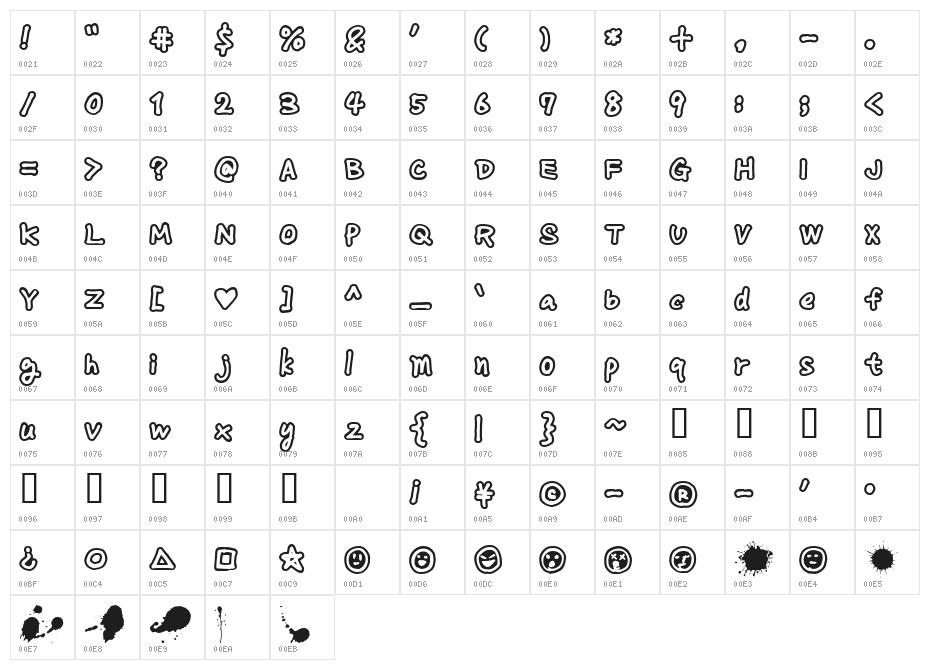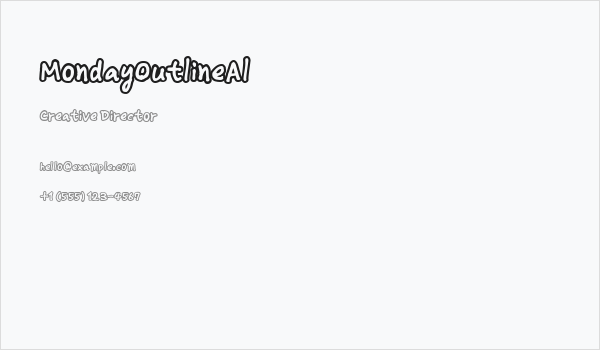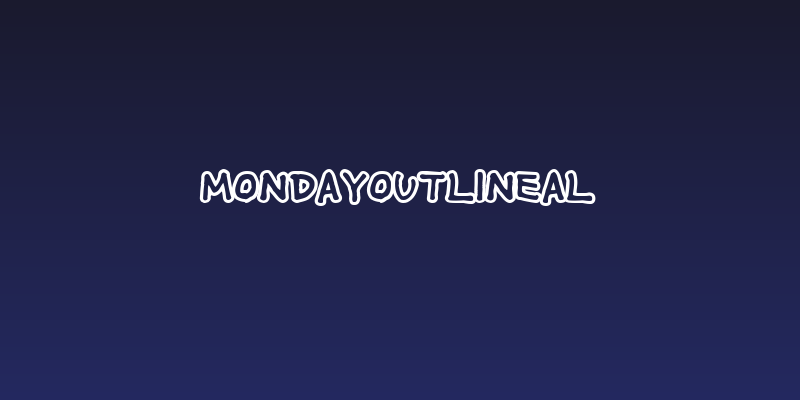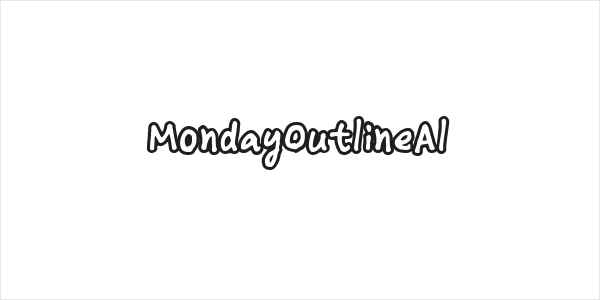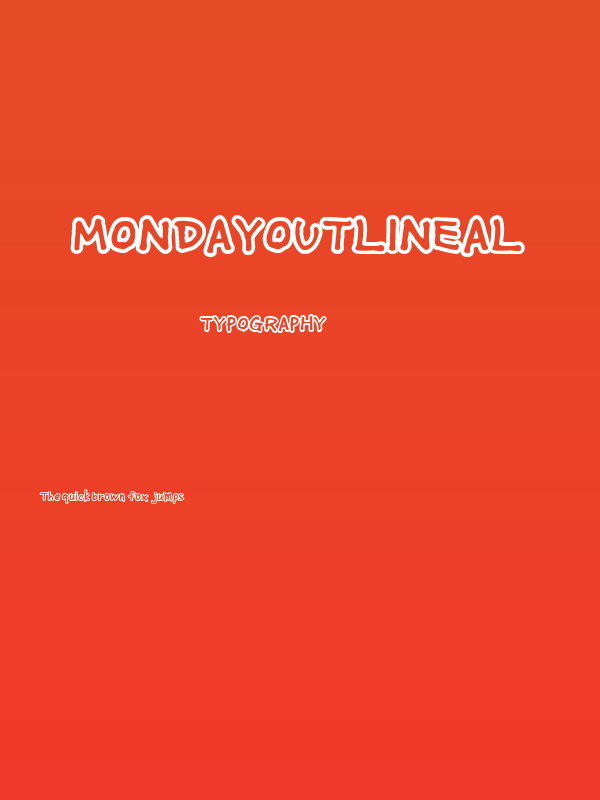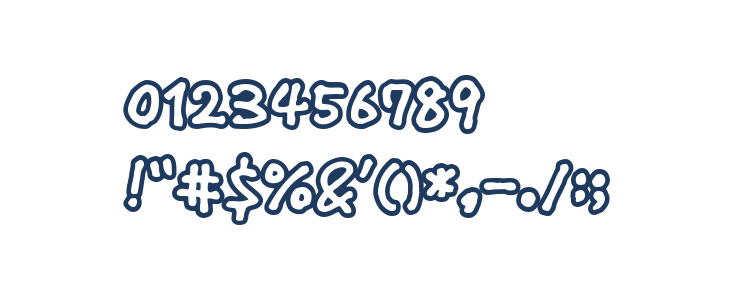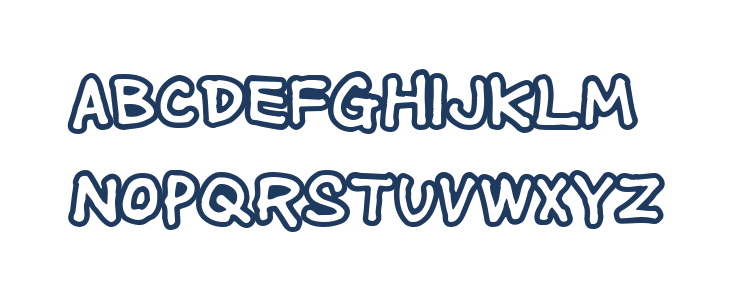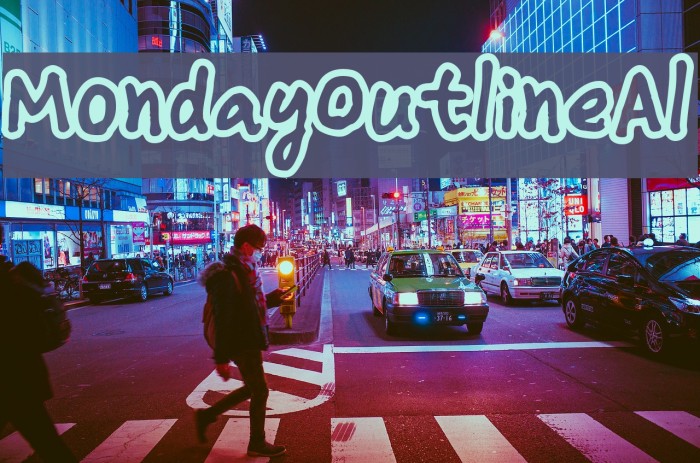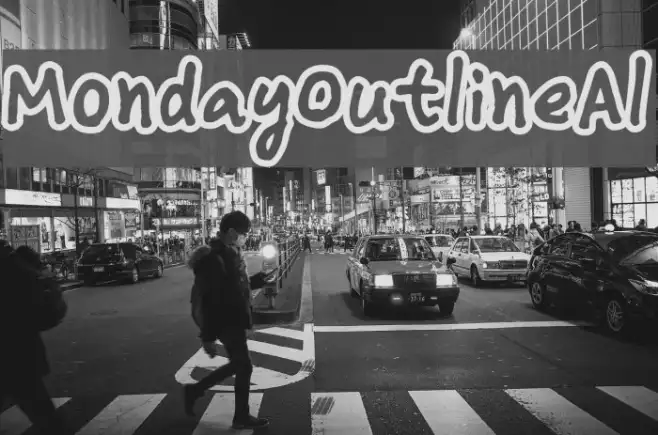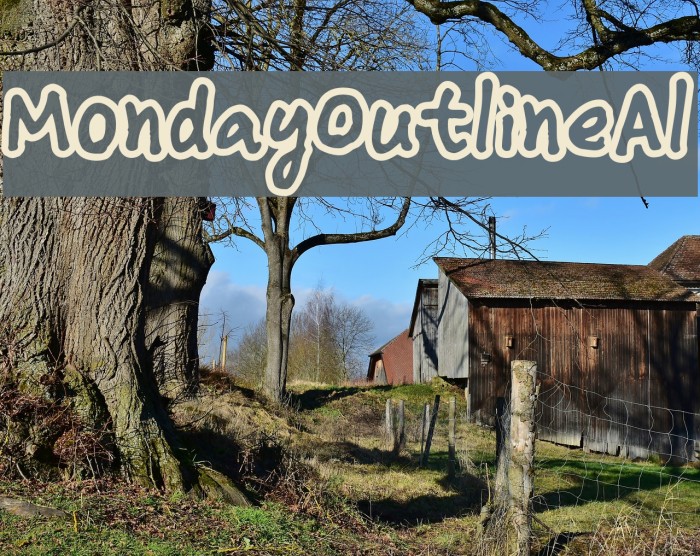
MondayOutlineAl Font
MondayOutlineAl Description
This playful and bold font features a unique outline style that gives each character a distinct, cartoonish appearance. The letters are rounded with a thick, consistent outline that adds a sense of fun and creativity. The uppercase and lowercase characters maintain a uniform style, with the lowercase letters slightly smaller but equally bold. Numbers and special characters follow the same design principles, ensuring a cohesive look across all elements. The font's whimsical nature makes it ideal for projects that require a touch of humor or lightheartedness.
| Overall Style | Playful, Cartoonish |
| Proposed Projects | Ideal for children's books, comic strips, playful branding, and party invitations. |